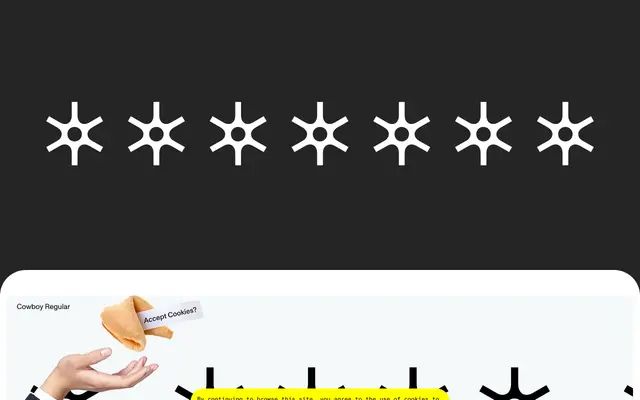
A western-style slab serif from Dinamo that takes a genre usually left to under-extended free fonts and builds it out with 643 glyphs, 11,217 kerning pairs and coverage for over 127 languages.
Where most western slabs are poorly kerned free-font afterthoughts, this one is built with Dinamo's characteristic rigour: butterfly serifs, no alternate letterforms, and a glyph set that includes subscripts, superscripts and arbitrary fractions. The 397 accented characters extend coverage to over 127 languages, which is unusually thorough for a display typeface of this genre. Only a single weight is offered, and the no-mercy, no-alternates approach is very much by design.
A self-described western-style slab serif with Dinamo's signature butterfly serifs, placing it firmly in the display slab tradition associated with American woodtype and frontier typography.